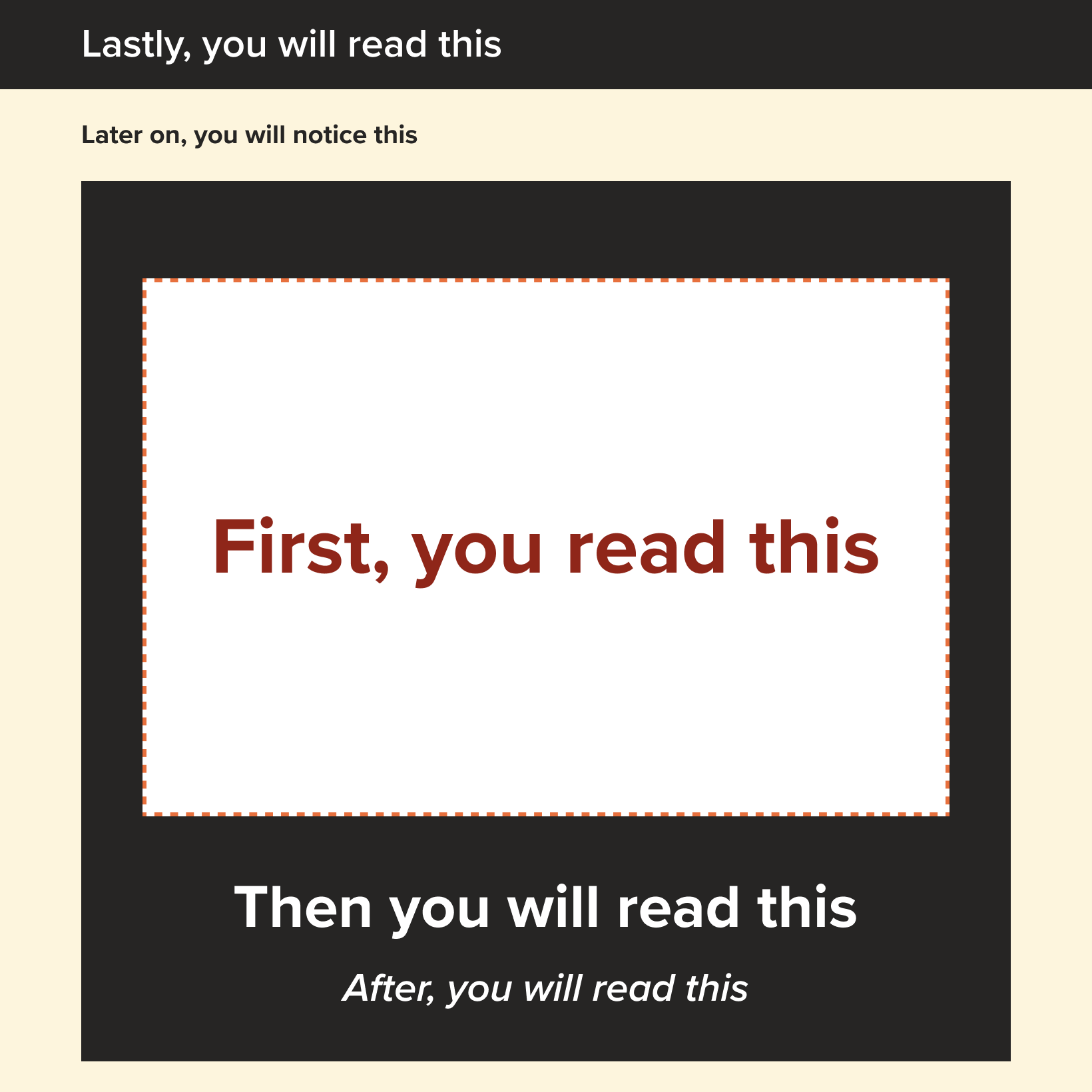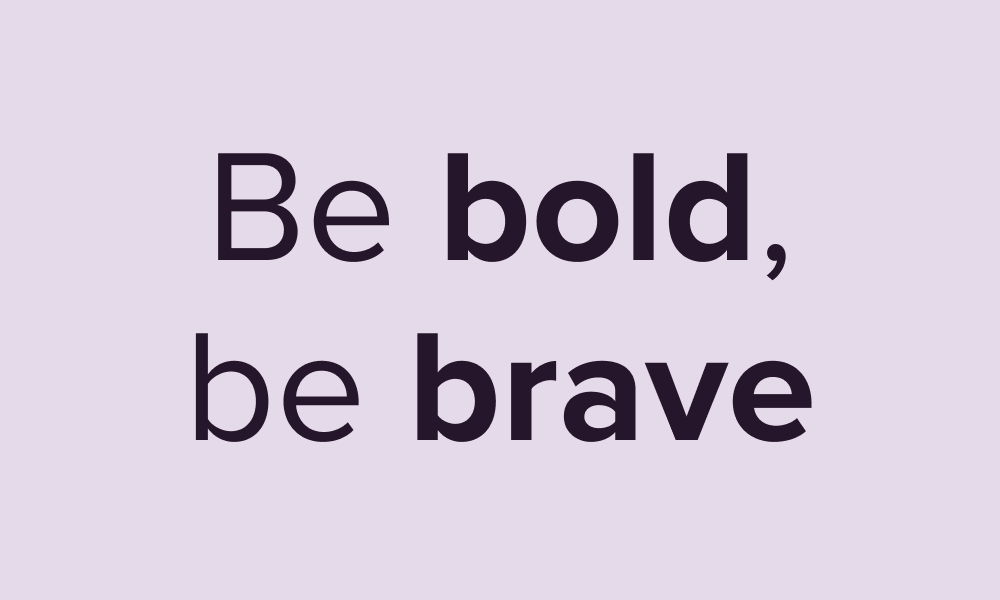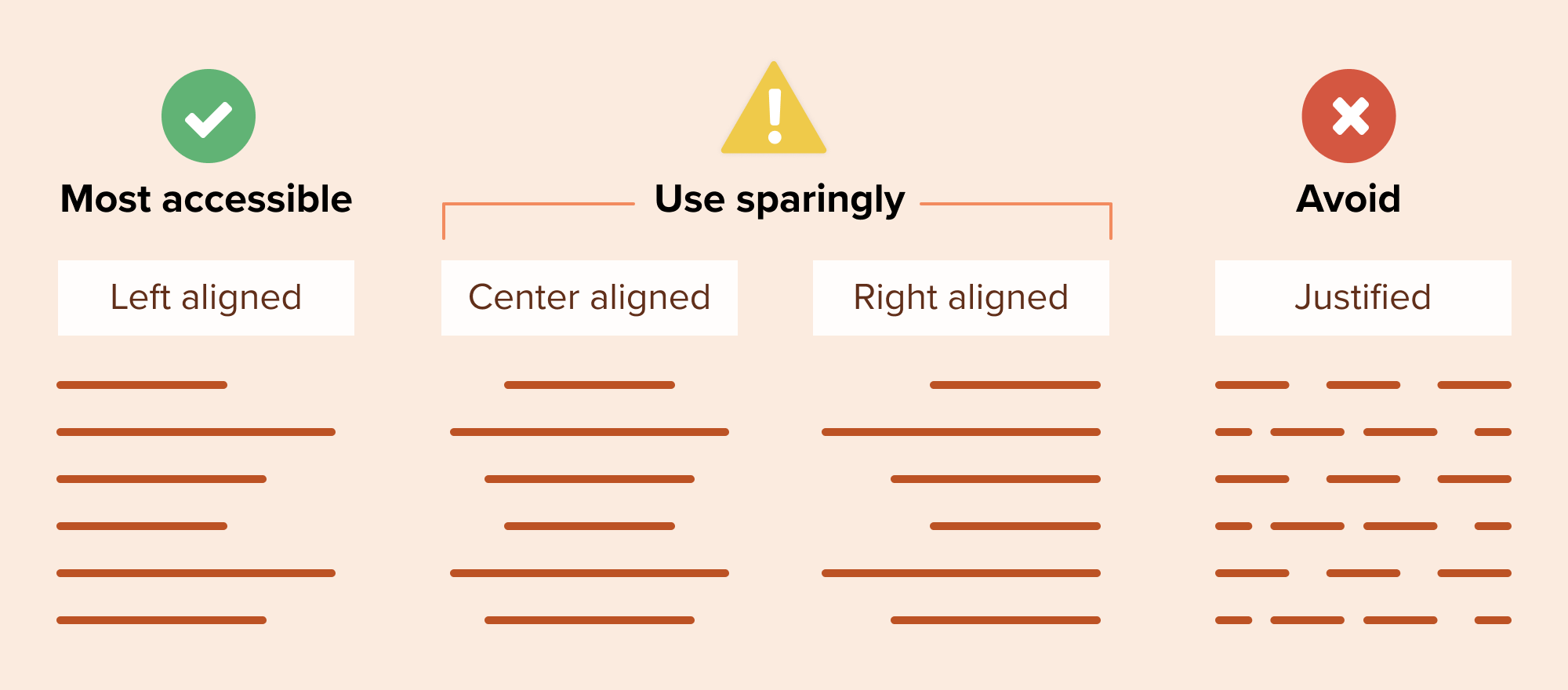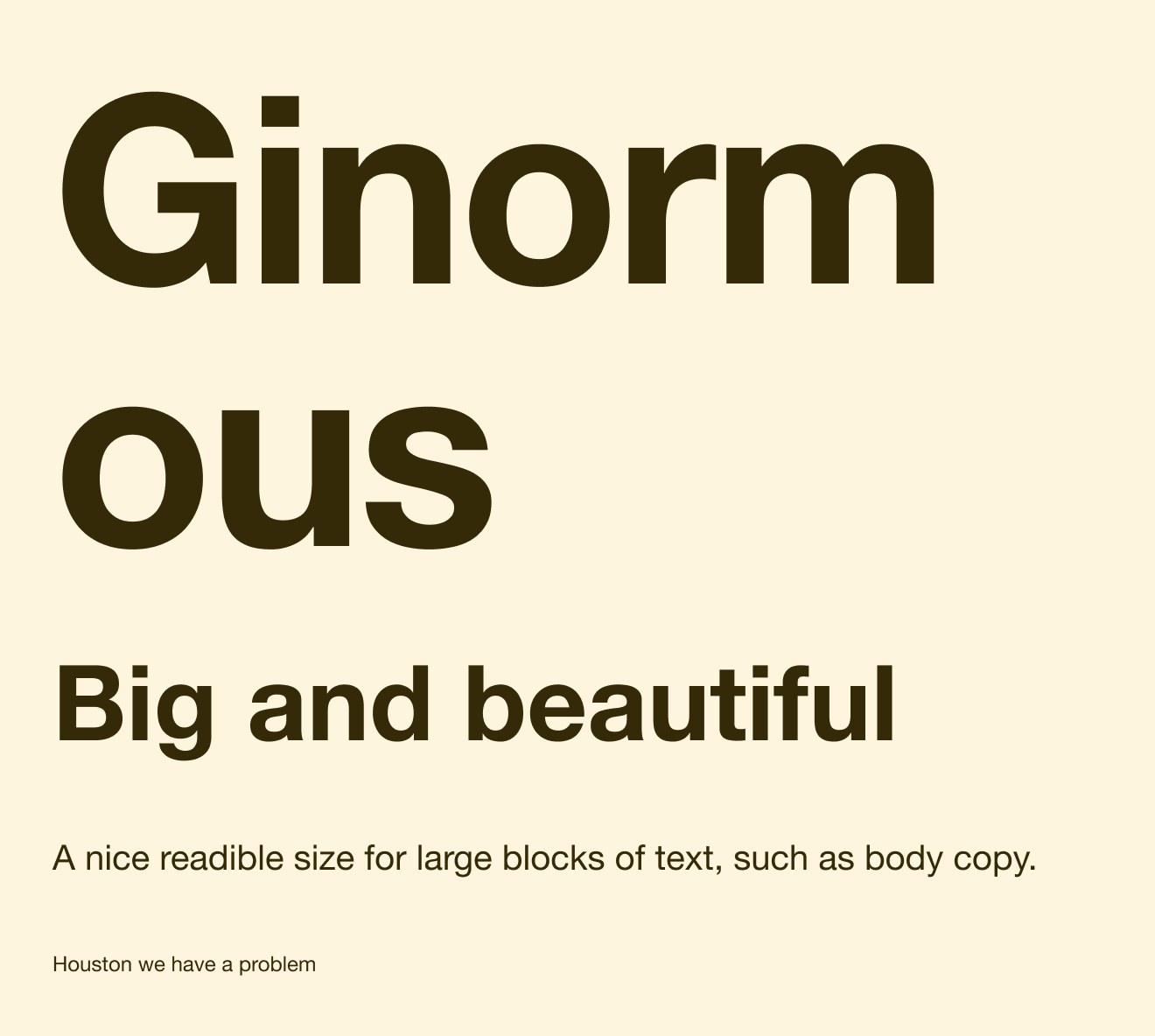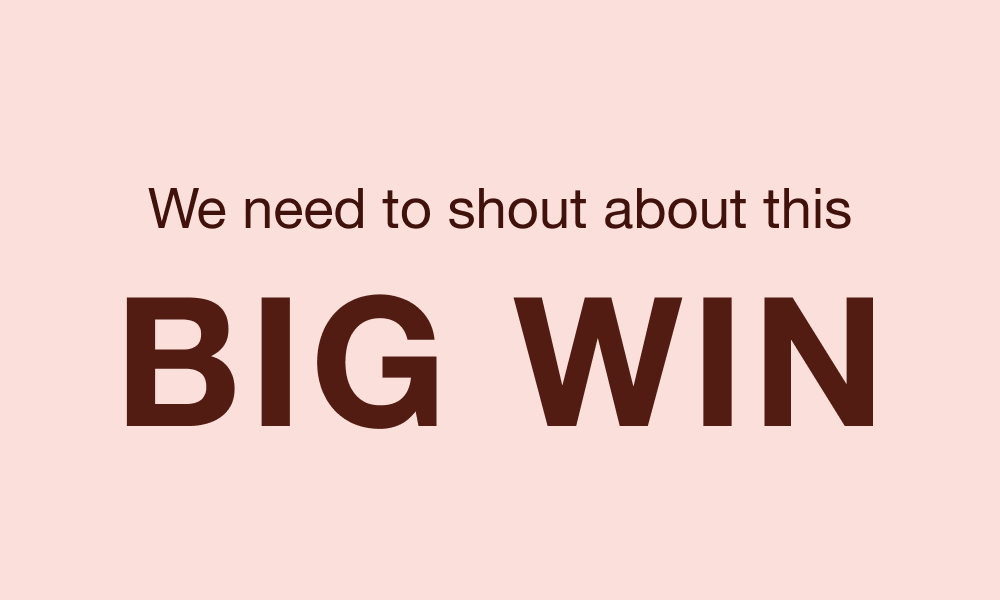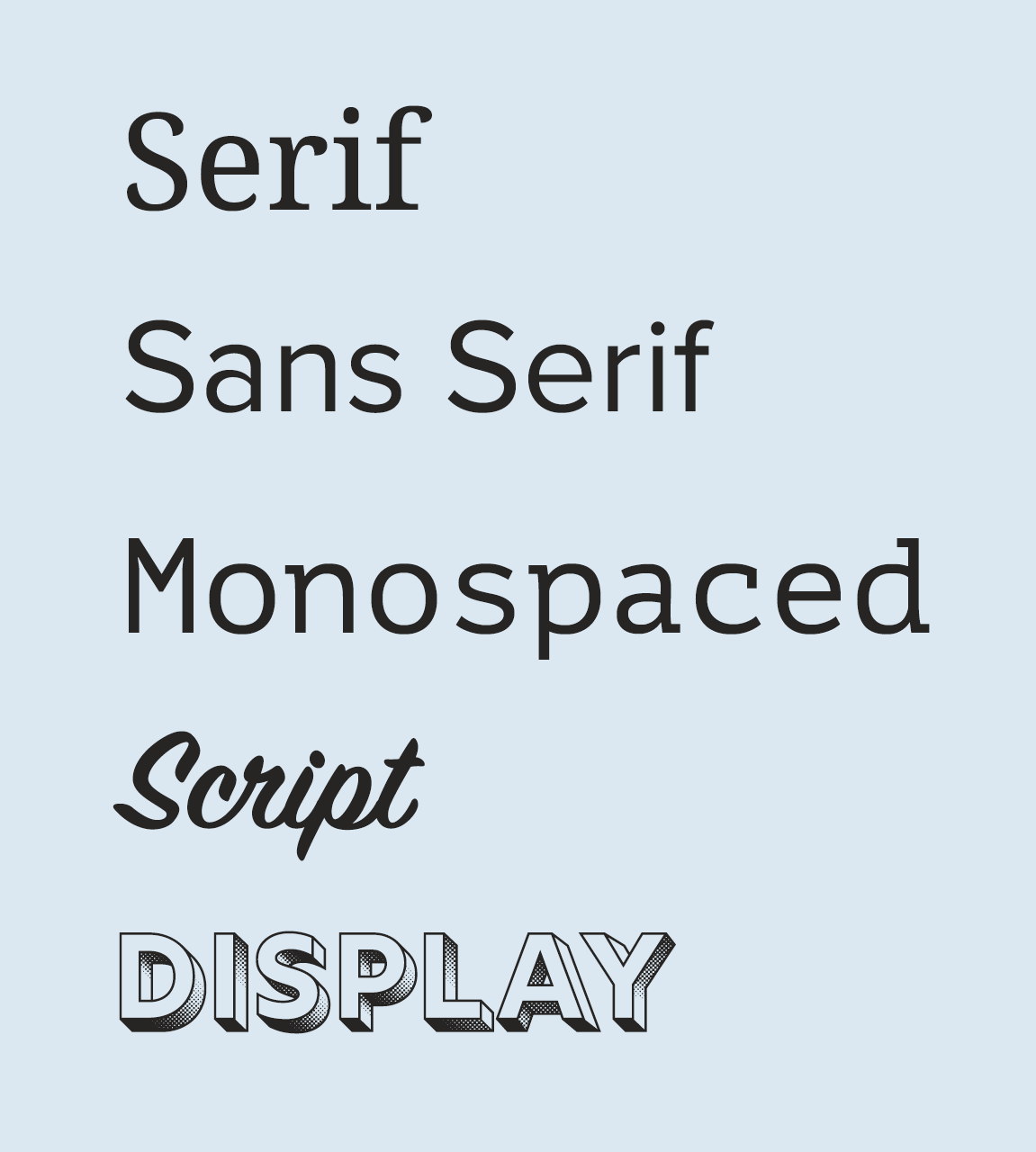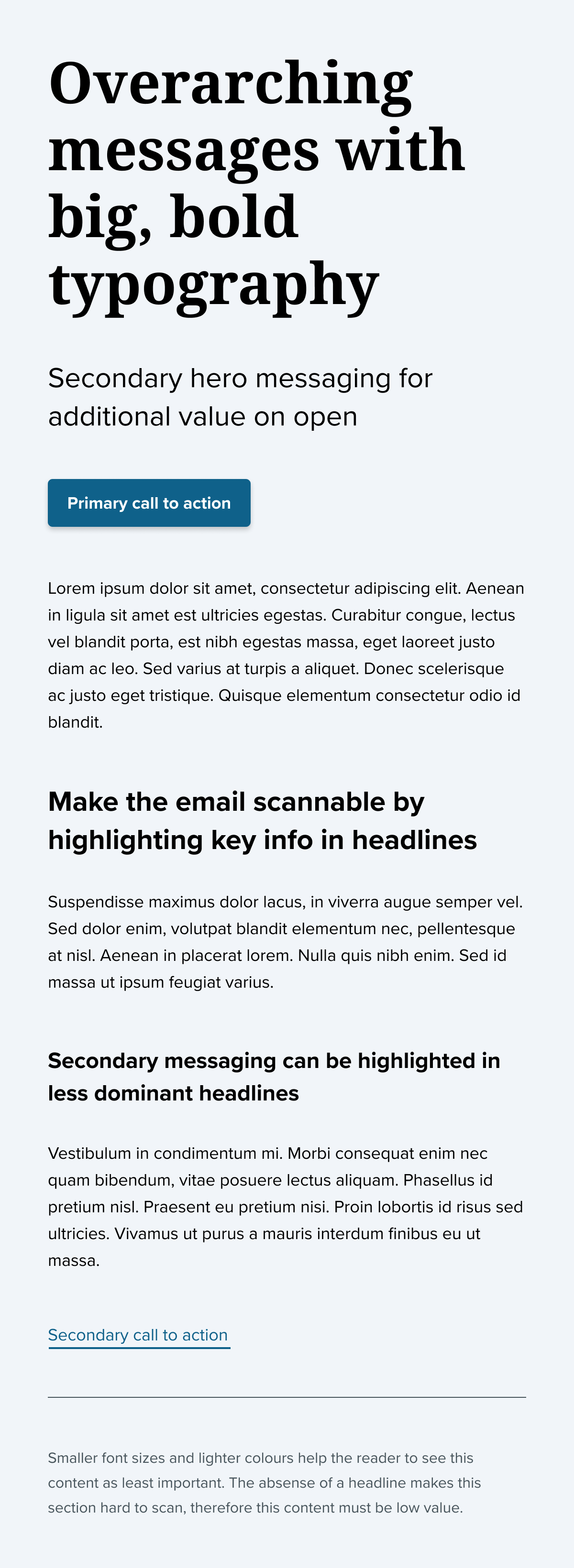
When we think about creativity in email, we often consider imagery as the go-to solution for eye-catching designs. There’s another way to get creative—typography.
What is typography in email?
Typography is the styling of the written content and includes typeface, weight, size, color, and letter spacing. Typography in email is all about your copy’s overall look and arrangement to make a visual impact.
Many brands today are grabbing subscriber attention and getting their message across with well-styled copy and few or no images.
What’s a typeface?
A typeface, or a font family, is the design of a set of characters, including letters, numbers, punctuation marks, and symbols. So, the typeface you choose is one aspect of your typography in email.
There are a plethora of typefaces out there that you can use to style email copy in your email design tool. The number of options can make deciding a little daunting, especially if you’re not bound by brand guidelines. But you can follow some general guidelines to help with your selection.
What are typeface classifications?
A typeface classification is a category of typeface. There are five basic classifications of typefaces: serif, sans serif, script, monospaced, and display.
- Serif fonts are recognizable by the decorative stroke at the end of letters, also often described as feet.
- Sans serif, meaning ‘without serif’ in French, has clean, precise ends to each letter.
- Monospaced typefaces have characters that each occupy the same amount of horizontal space. Fonts without monospacing are variable-width, with letters and spacings of different widths.
- Script, or cursive fonts, are often fluid, joined letters, similar to handwriting.
- Display, or fantasy fonts, are decorative, creative typefaces you can use in large format or logo design.
The typefaces you can use in email
To use a typeface within an email, it needs to be a web font.
A typeface needs to be a web safe font to use within an email, which is a digital typeface that you call in with your code. There are many free web fonts available, plus options you can purchase. Let’s look at the two types of digital fonts you can call into your email: web safe fonts and web fonts.
Web safe fonts
Web safe fonts are typefaces installed on most operating systems, meaning that calling these fonts into your email code will result in consistent rendering across email clients, devices and operating systems.
Here are the web safe fonts best supported across Windows and Mac devices:
Font stacks are a list of fonts starting with the primary typeface you want to render, followed by fallback fonts that will appear if a subscriber doesn’t have your chosen font installed. For example:
font-family:’Helvetica Neue’,Helvetica,Arial,sans-serif;
Web fonts
Web fonts are typefaces that are not available on all operating systems.
Therefore, you need to add some extra code to your emails to put them to use. You also need to use fallback web safe fonts in your font stack, as not all email clients will render email typography the same way.
You can find web fonts in many different places, such as Google Fonts, a free resource, and Adobe Fonts, which requires a subscription. If you have custom fonts created in-house, you’ll also treat them like a web font that needs a web safe backup.
For a comprehensive guide to web fonts, check out our Ultimate Guide to Web Fonts.
Ideally, you shouldn’t use more than two font styles at a time, or the design can become noisy and confusing. Too many web fonts can also increase the load time of your email.
Why typography matters in your email design and development
Sure, unique typography looks cool, but is it worth the extra effort to customize? Here’s what you stand to gain by standing out with email typography.
Help subscribers identify your brand
Using brand-specific fonts helps subscribers identify your brand when they open your email. Some fonts are very distinctive, even out of context—think of Walt Disney and Coca-Cola. Cohesive and consistent branding could increase recognition, reputation, and trust.
Differentiate communication types
You can style different types of communication, like transactional messages and email newsletters, using separate font styles. Unique visual identities help your audience quickly identify the type of communication. The typeface you use can also elicit different emotions. For example, you need password reset messages to feel secure and professional—so Comic Sans is definitely off the table.
With the rapidly growing number of messages competing for your subscribers’ attention, the burden to stand out and still provide a reliable experience—fast—keeps getting heavier. Typography is a great way to make your emails beautiful, effective, and accessible without slowing you down.